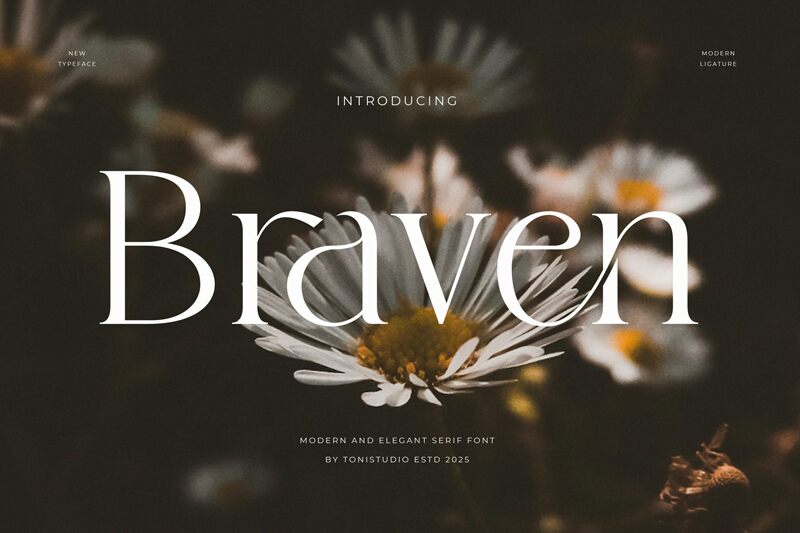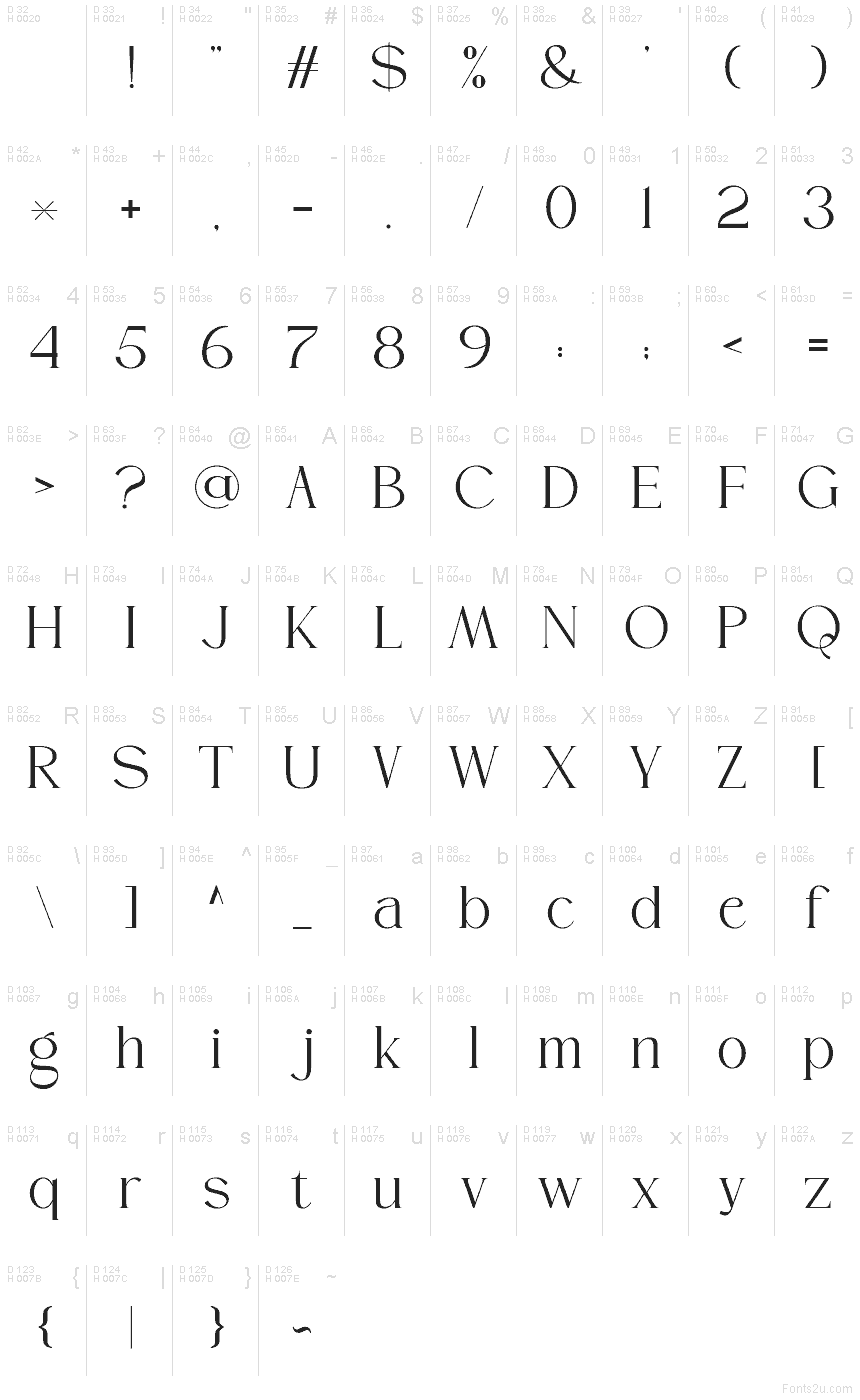
Braven
Braven font, designed by ToniStudio, is a sophisticated serif typeface that exudes elegance and a classic vibe. Its formal and refined style makes it ideal for projects seeking a timeless and authoritative look. The font’s graceful strokes and balanced structure offer a timeless visual appeal suitable for high-quality print and digital designs.
This free serif font is perfect for use in editorial designs, brand identities, book covers, posters, magazines, invites, or presentation materials. Websites featuring news articles or blogs also benefit from this excellent choice of an elegant platform appropriately complemented by Braven’s distinguished presence across the entire page composition!